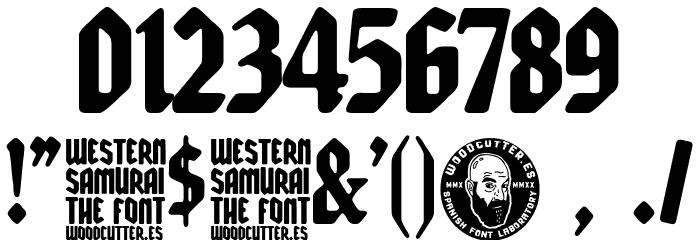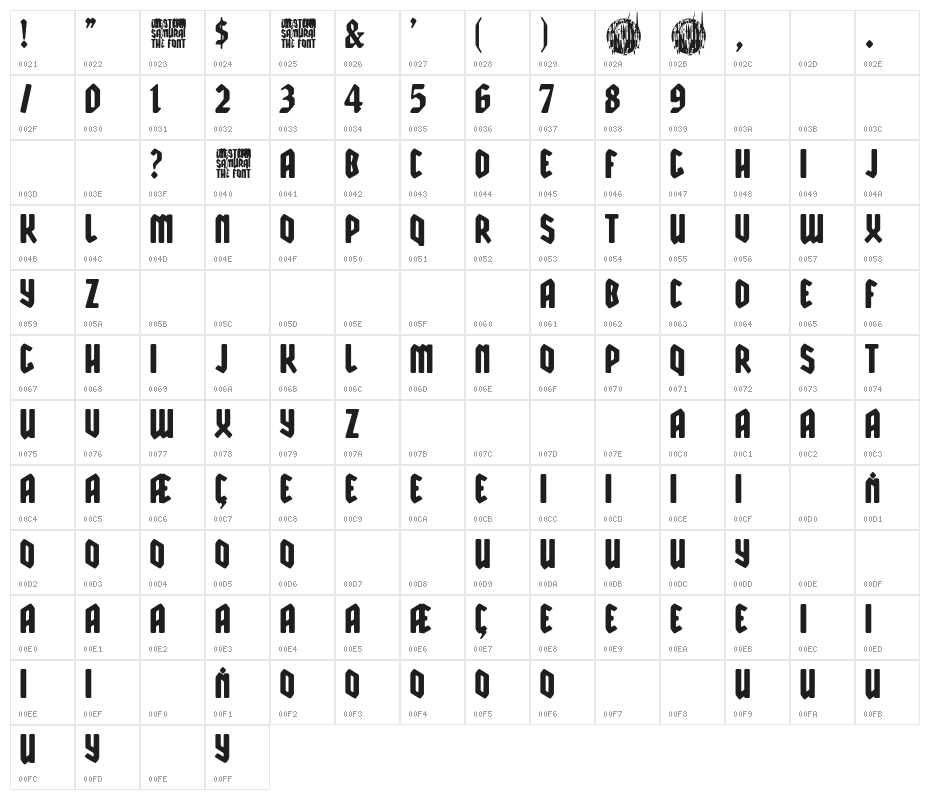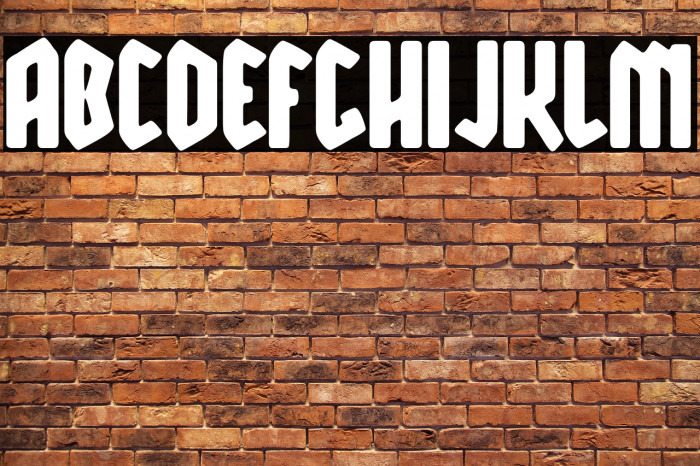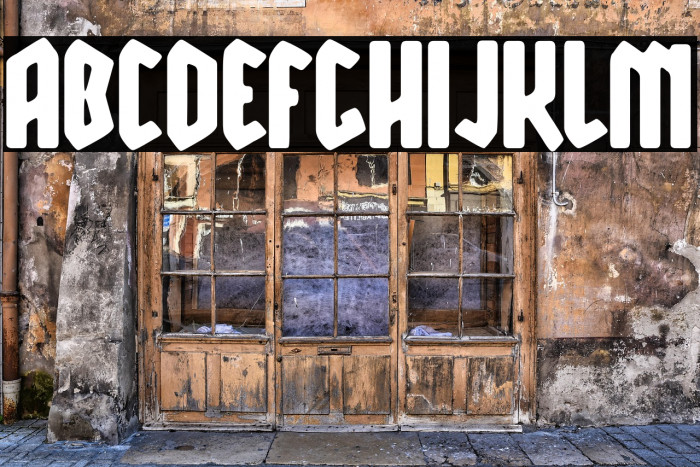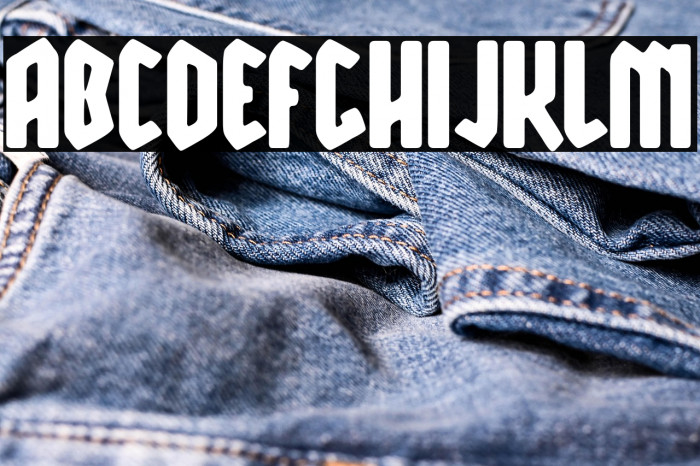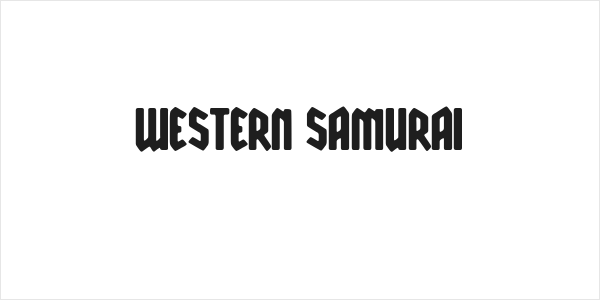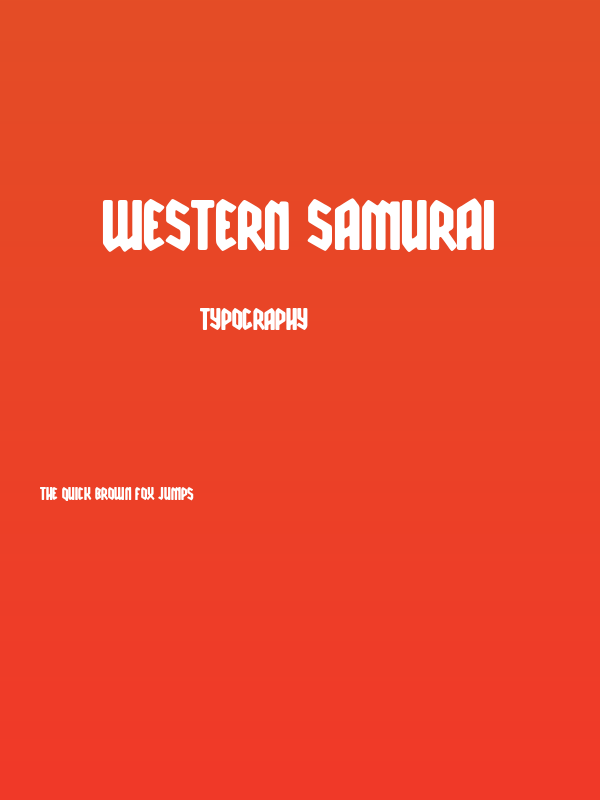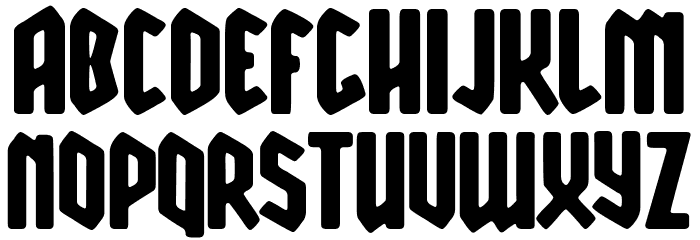
Western Samurai Font
Western Samurai Description
This font features a bold and striking design that combines elements of Western and Samurai aesthetics. The characters are robust and angular, with sharp edges and a strong presence. The uppercase and lowercase letters maintain a consistent style, with a unique flair that evokes a sense of adventure and tradition. The numbers and special characters are equally bold, ensuring a cohesive look across all text. This font is perfect for creating eye-catching headlines or logos that require a touch of boldness and cultural fusion.